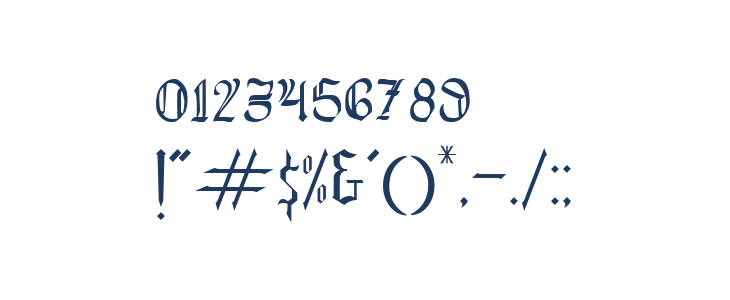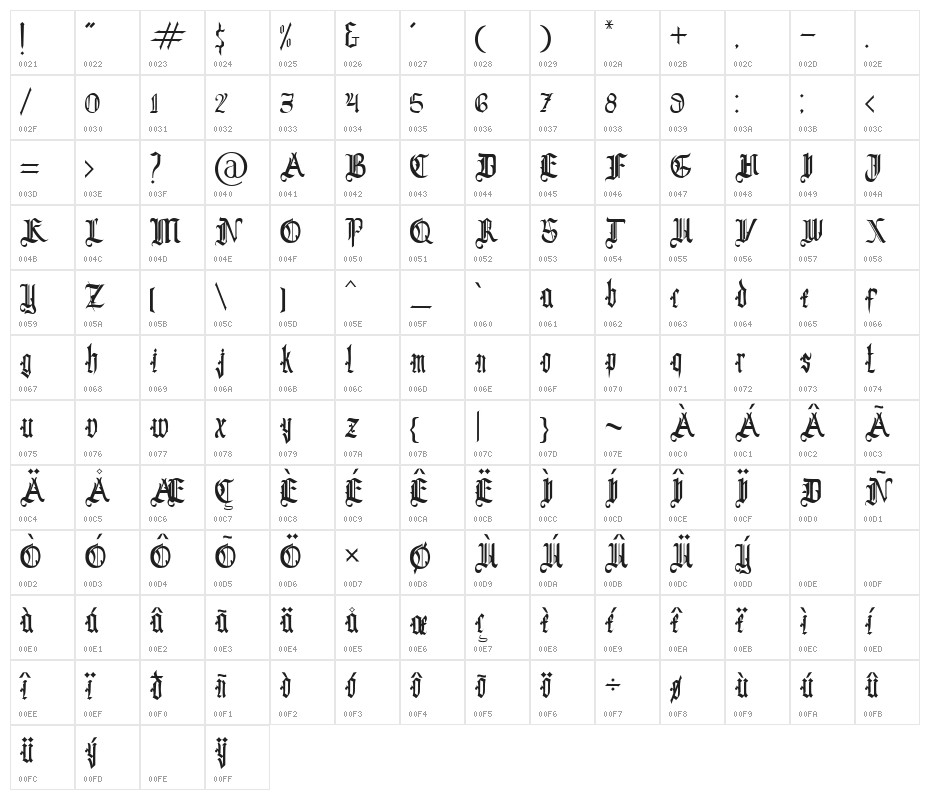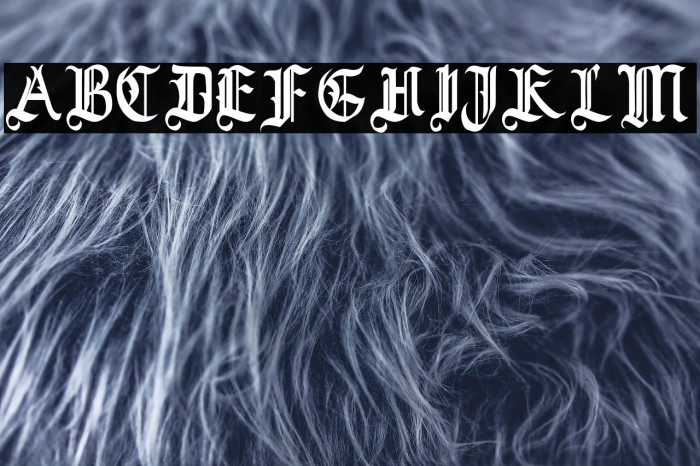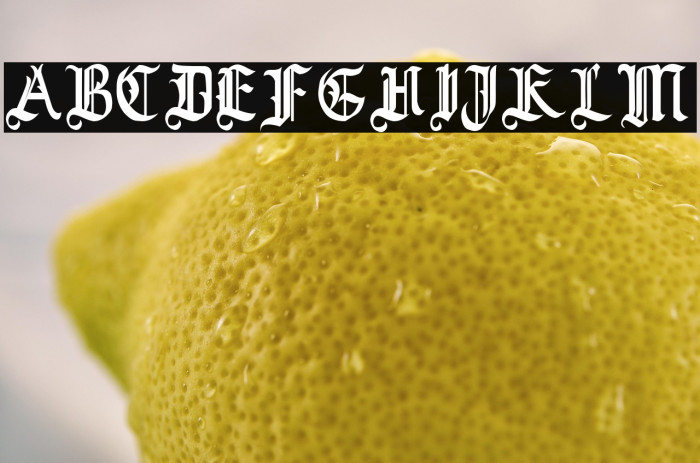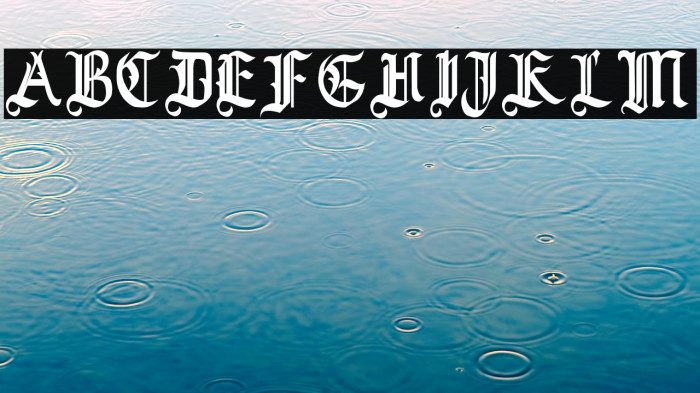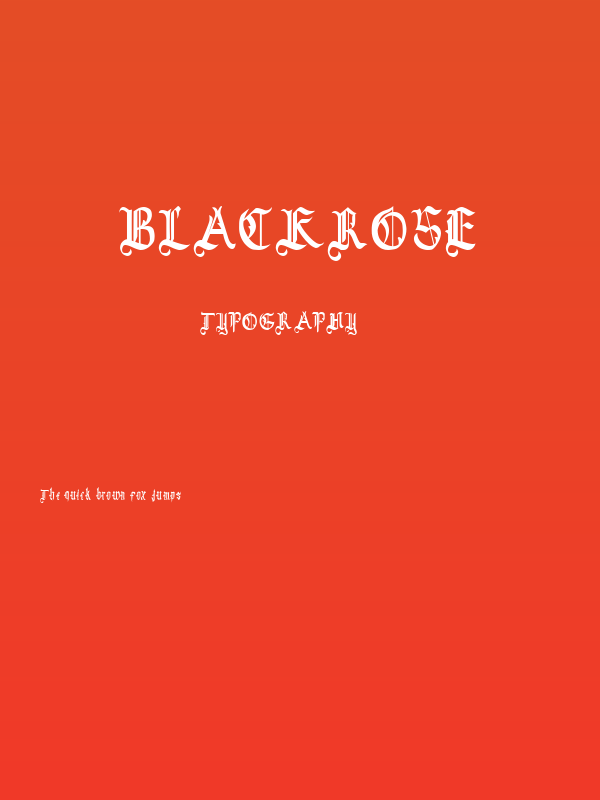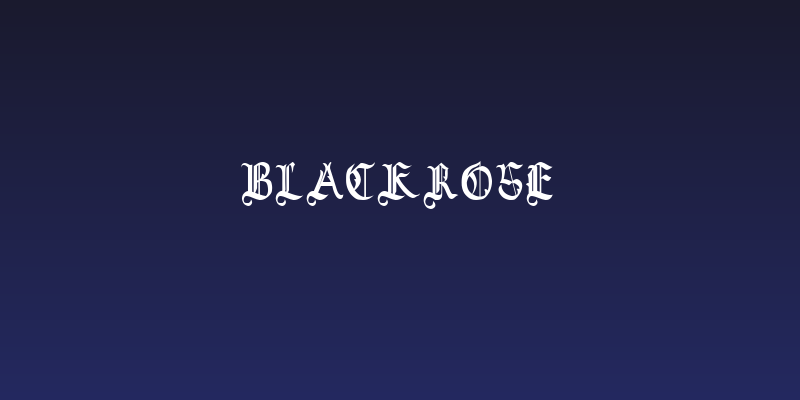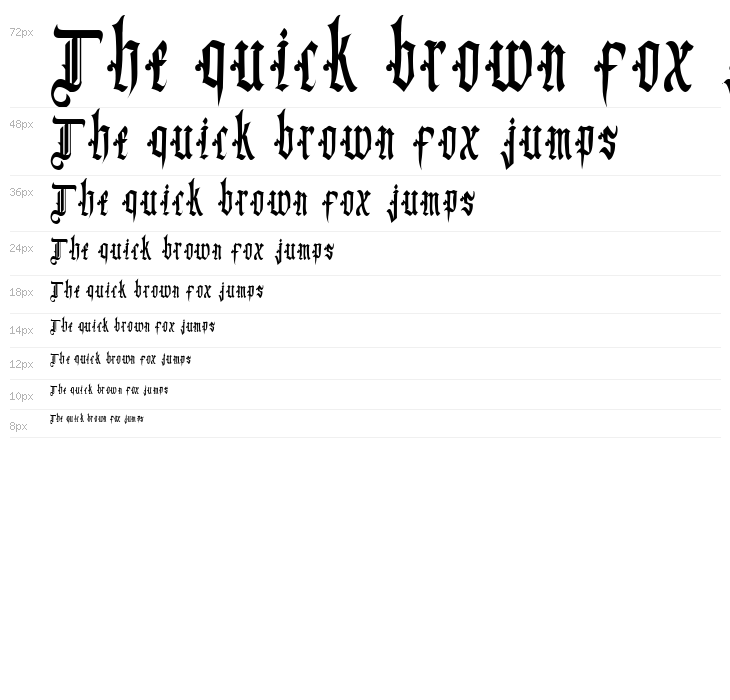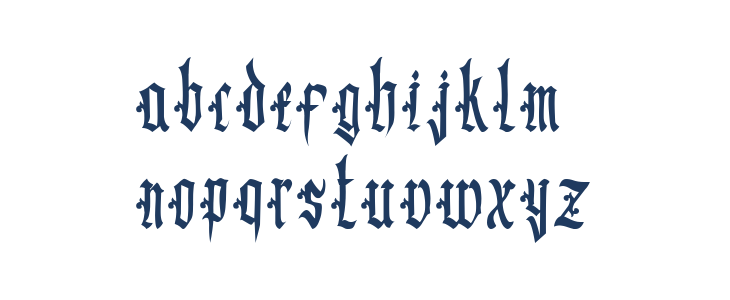
Blackrose Font
Blackrose Description
This font embodies a classic Blackletter style, characterized by its intricate and ornate design. The letters are bold and dramatic, with sharp, angular lines and decorative flourishes that give it a gothic and medieval appearance. The uppercase letters are particularly elaborate, featuring pointed serifs and unique embellishments that enhance its historical feel. The lowercase letters maintain the same intricate detailing, ensuring consistency throughout the typeface. Numbers and special characters are equally stylized, maintaining the font's overall aesthetic. This font is perfect for projects that require a touch of elegance and tradition, such as invitations, certificates, or branding that seeks a vintage or historical vibe.
| Use Case | Headlines, Logos, Decorative text |
| Proposed Projects | Ideal for wedding invitations, historical documents, branding, and decorative purposes. |